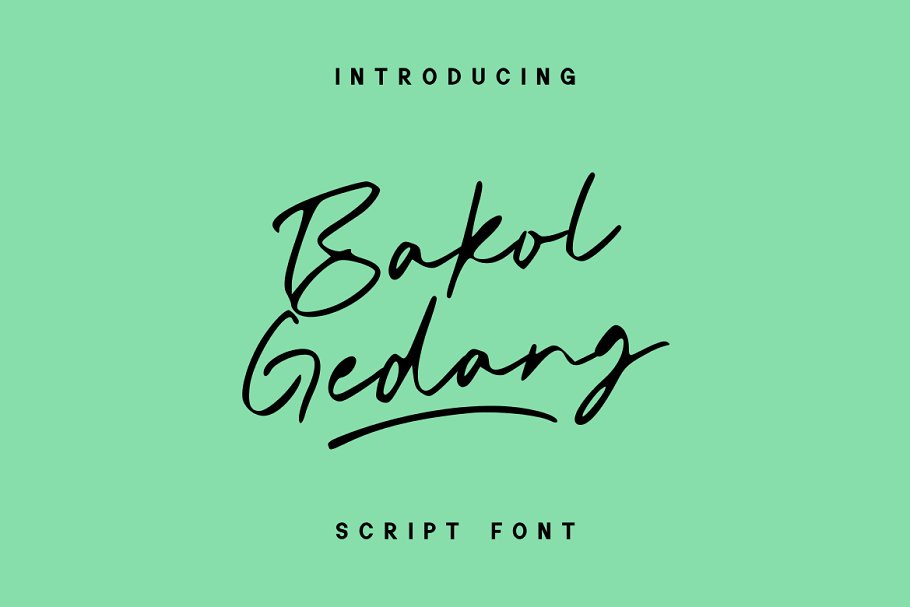
Looking for a font that will add a personal touch to your designs? Look no further than Bakol Gedang - Script Font, created by the talented designer ABDUL GHOFUR. This beautiful script font is perfect for anyone looking to add a unique and hand-crafted feel to their projects.
One of the standout features of Bakol Gedang is its ability to mimic handwritten lettering. This makes it perfect for adding a personal touch to invitations, cards, and other printed materials. The fluid strokes and elegant curves of this font will bring a touch of sophistication to any design.
Bakol Gedang is also incredibly versatile. It can be used for a wide range of design projects, from logos and branding materials to social media graphics and web design. The OTF and TTF files included with this font make it easy to use in a variety of design programs.
But Bakol Gedang isn't just versatile - it's also incredibly beautiful. The flowing lines and delicate flourishes of this font will add a touch of elegance and sophistication to any design. Whether you're creating a wedding invitation or a product label, Bakol Gedang will help your design stand out from the crowd.